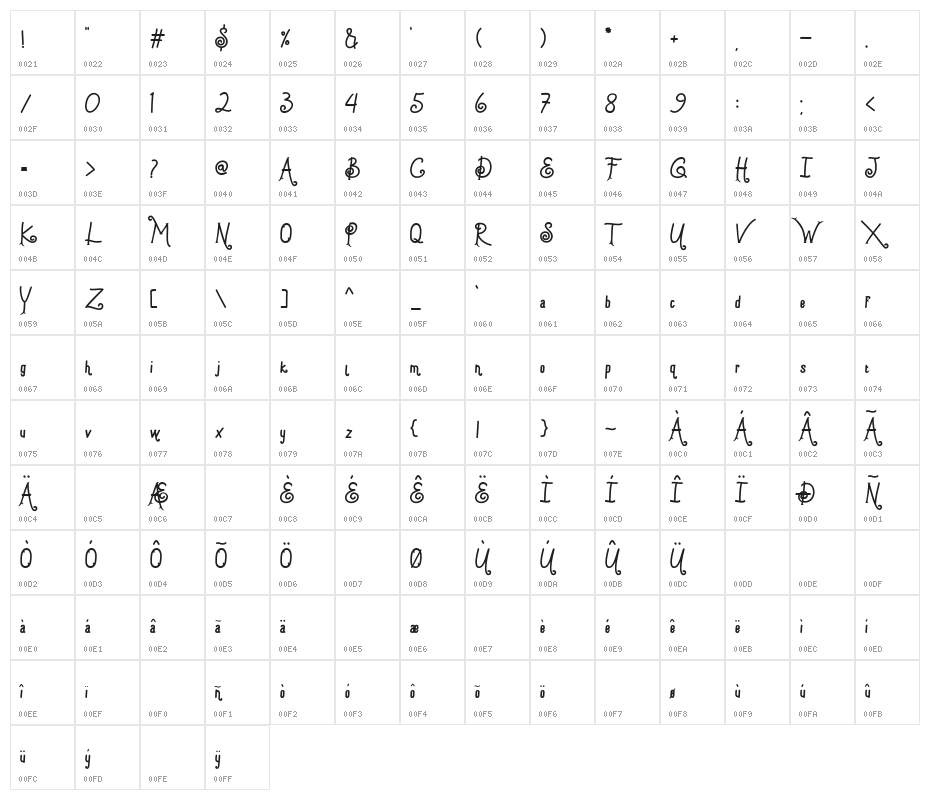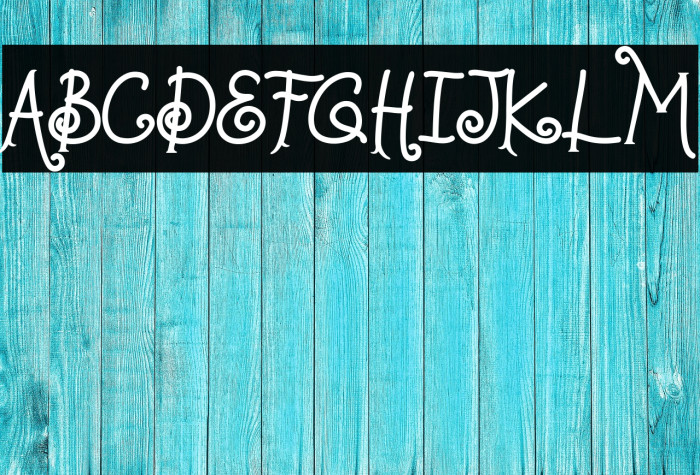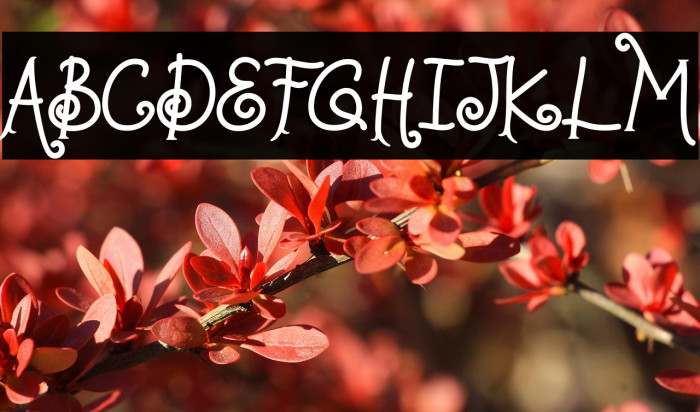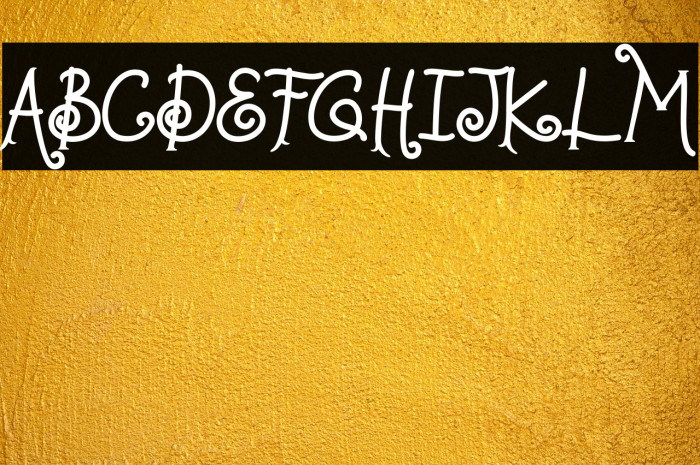
wornpath Font
wornpath Description
This font features a whimsical and decorative style, characterized by its playful and curly serifs. The uppercase letters exhibit unique swirls and loops, adding a sense of movement and creativity. The lowercase letters maintain a consistent style with subtle variations, enhancing the font's charm. Numbers and special characters are designed to match the overall aesthetic, making them suitable for artistic and expressive projects. The font's distinctive appearance makes it ideal for eye-catching designs that require a touch of personality and flair.
| Use Case | Headlines, Logos, Artistic projects |
| Proposed Projects | Ideal for creative projects such as invitations, greeting cards, posters, and branding materials that require a unique and artistic touch. |